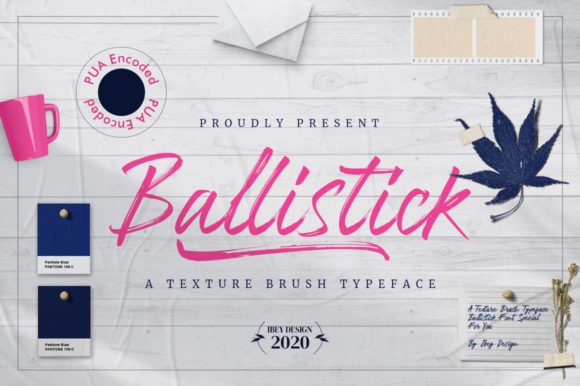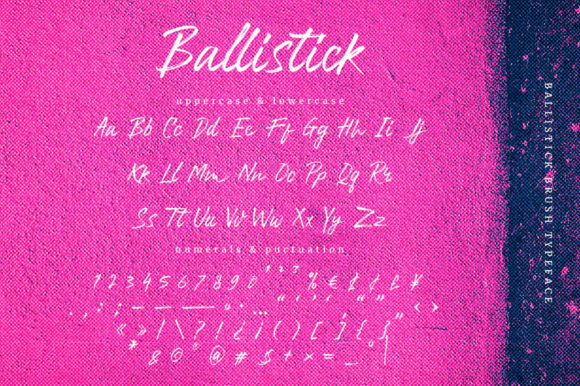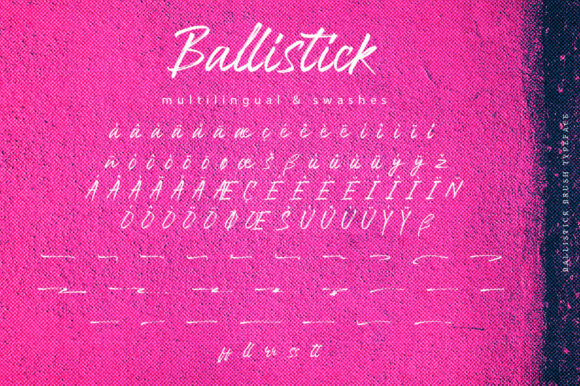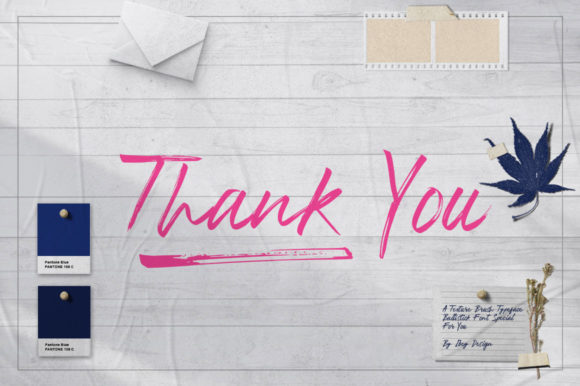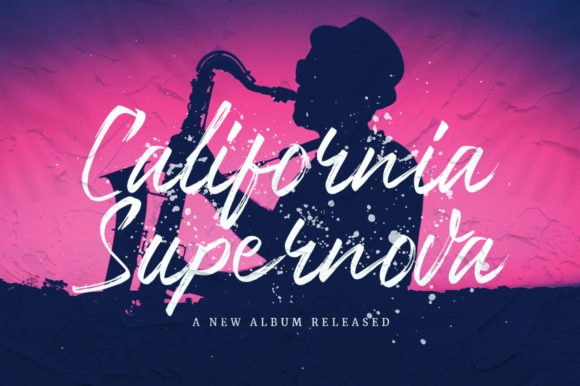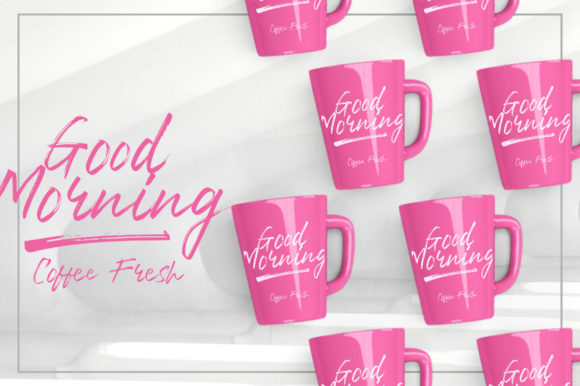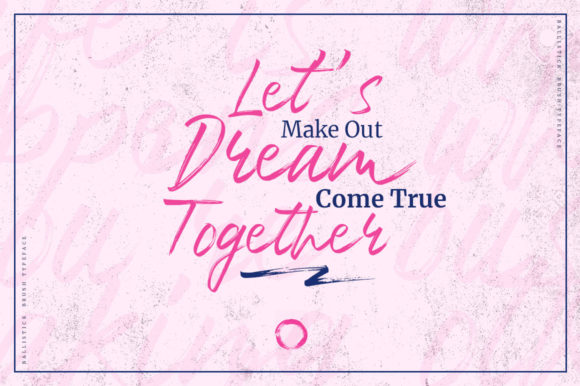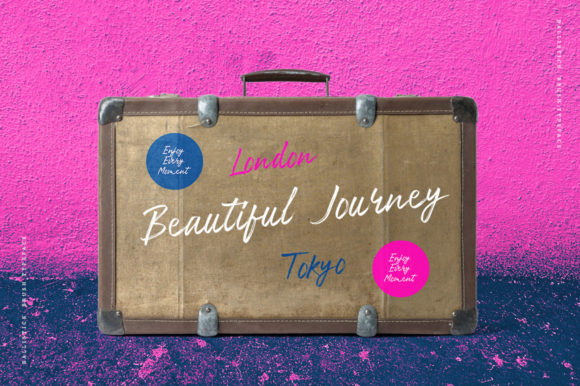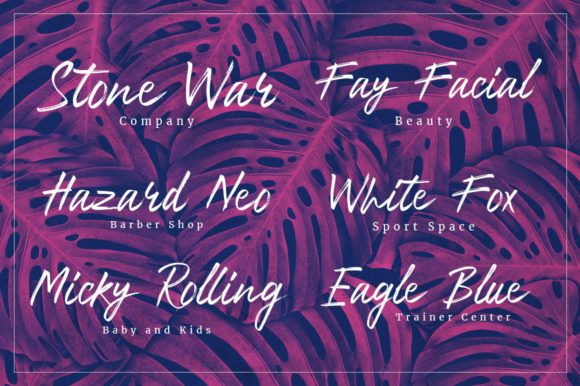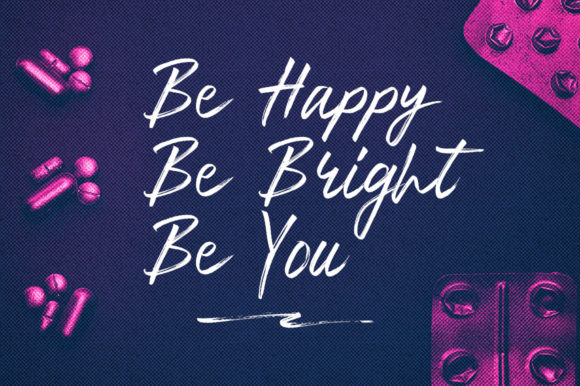
Ballistick Font
About Ballistick Font
Ballistick is a casual, fun handwritten font, created by using a brush pen. Clean and a little bit quirky, this font is the perfect fit for all of your logos, branding, social media, and crafty DIY projects.